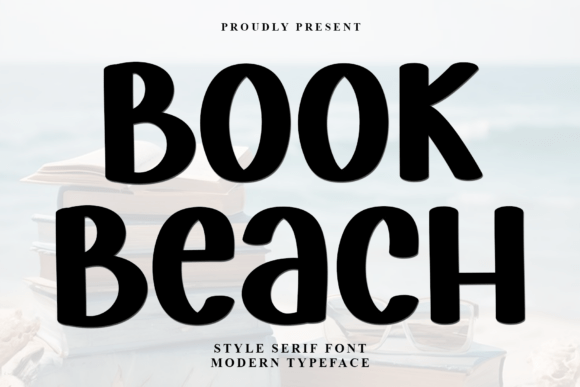
Deck the Halls with Type: Introducing Book Beach Font
It’s that time of the year when creativity knows no bounds, and the air is filled with the magic of the holiday season. You’re sitting at your desk, surrounded by twinkling lights and festive decorations, brainstorming ideas for the perfect gift or card. As you search for the perfect font to bring your design to life, you stumble upon a hidden gem – Book Beach Font.
This enchanting typeface is designed to capture the essence of the holiday season, with its whimsical flair and decorative elements. Whether you’re creating greeting cards, gift tags, or holiday-themed projects, Book Beach Font is the perfect companion to bring a touch of cheer and nostalgia to your designs. As a designer, you’ll appreciate the value of this font, which is PUA encoded, making it easy to access all the amazing glyphs and ligatures. Get ready to let your typography shine with the magic of Book Beach Font!
Book Beach Font Key Features
- Unique Characteristics: This font features a distinctive, hand-drawn style with a beachy vibe, making it perfect for creating a relaxed, summer-inspired atmosphere in designs.
- Character Set: Book Beach Font includes a comprehensive character set, including uppercase and lowercase letters, numbers, and punctuation marks, as well as special characters and symbols.
Book Beach Font Review
Overall, I’d say the Book Beach Font is a nice addition to any design project. ✨ It’s perfect for creating a relaxed, coastal vibe, making it ideal for travel or summer-themed projects. The font’s rounded edges and soft curves evoke a sense of calmness, making it a great choice for headings and titles.
The Book Beach Font also has a nice variation in weight, from light to bold, allowing for a good balance of contrast and readability. This makes it suitable for both short and long blocks of text. ✨ Additionally, the font is highly customizable, with options for different font sizes, colors, and styles, making it easy to integrate into any design.
While the Book Beach Font is a great choice for many projects, there are some limitations to consider:
- ⚠️ The font may not be suitable for formal or professional projects, as it’s quite casual and playful.
- ⚠️ The font’s rounded edges and soft curves can make it difficult to read at very small sizes.
In conclusion, the Book Beach Font is a great choice for projects that require a relaxed, coastal vibe. While it may have some limitations, it’s a versatile and customizable font that can add a lot of visual interest to any design. With a little creativity, the Book Beach Font can help create a unique and engaging visual identity for your project.
Getting the Most Out of Book Beach Font
To get the most out of Book Beach Font, use it for:
- Book covers and author branding.
- Personalized gift tags and labels.
Book Beach Font is commonly used for:
- Beach-themed designs.
- Coastal-inspired branding.
- Summer-themed invitations and events.